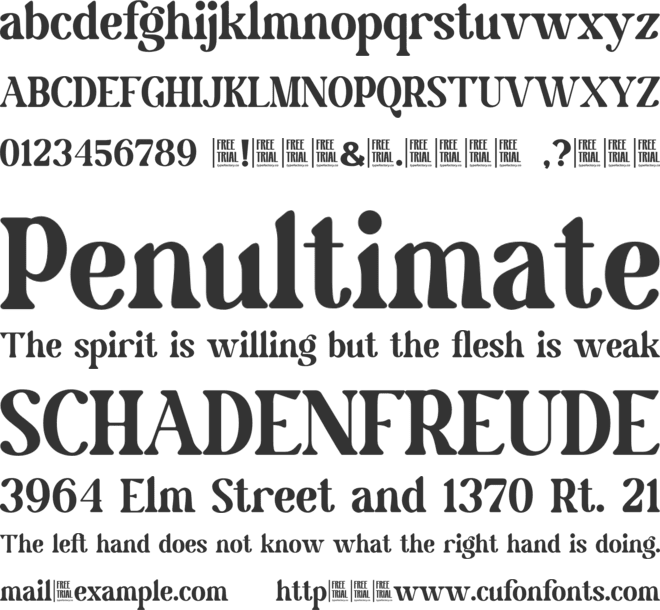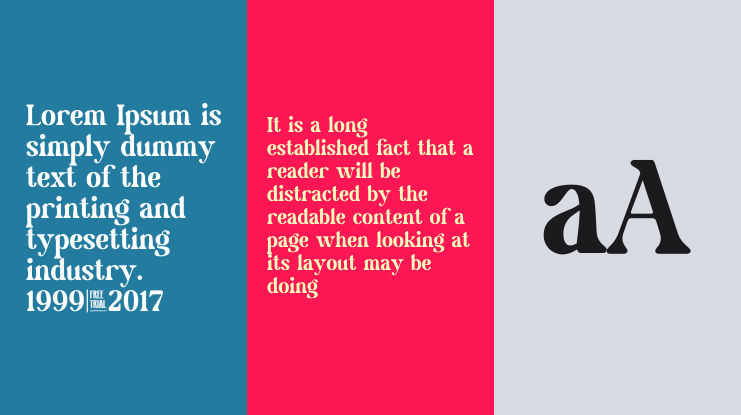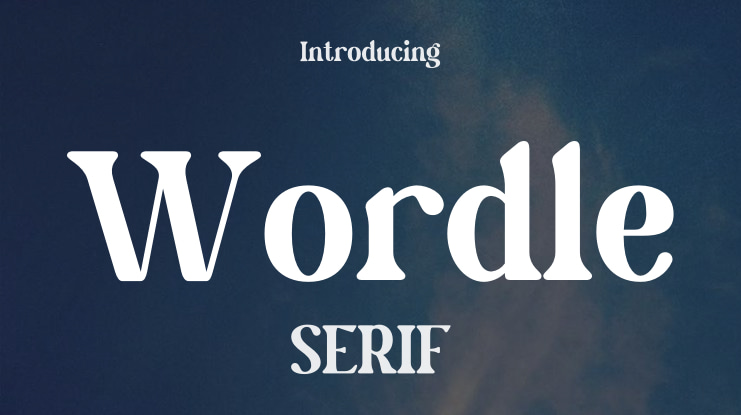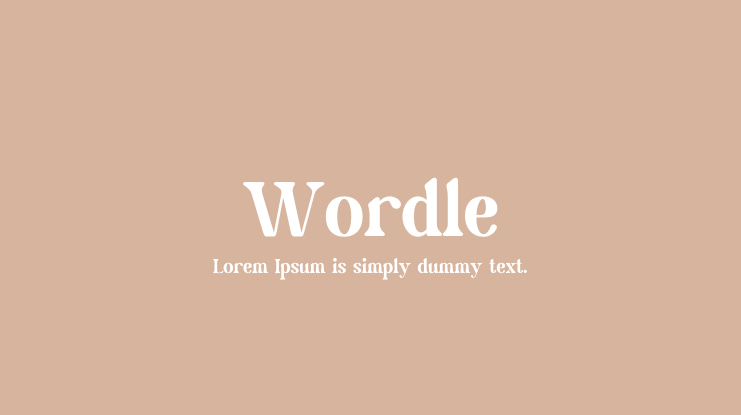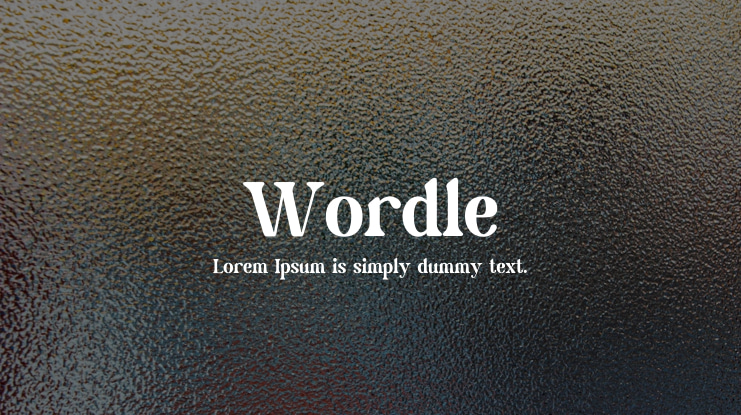
Wordle Font
Elevate simplicity with "Wordle" - a simple serif typeface that embodies timeless elegance in your designs!
With its clean and refined letterforms, "Wordle" adds a touch of sophistication to any project. Each character is meticulously designed to strike the perfect balance between simplicity and readability, making it ideal for minimalist branding, clean editorial layouts, elegant invitations, and more.
Embrace the understated charm of "Wordle" as it effortlessly enhances your designs. Whether you're crafting classic logos, timeless book covers, prestigious certificates, or clean social media graphics, this font will captivate your audience with its simple and serif style.
Step into a world of refined typography with "Wordle" and let your designs communicate with clarity and elegance!